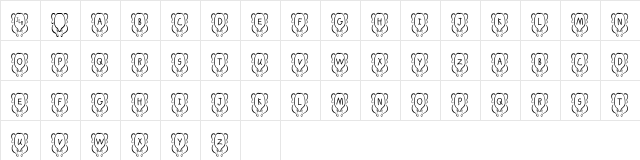
JLR White Meat Regular
Design Context for JLR White Meat Typeface
JLR White Meat is a composed and adaptable typeface that performs quietly and consistently across a wide range of design contexts.